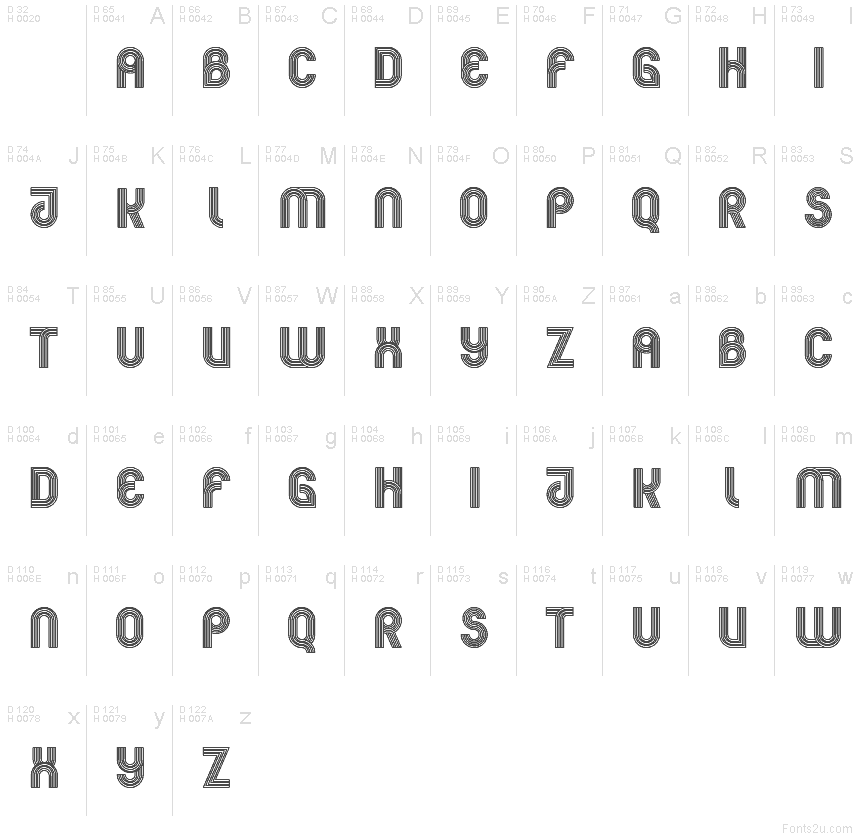
Primavera Book Regular
Primavera Book font by Vladimir Nikolic is a retro, groovy display typeface that embodies a futuristic and geometric style. Its bold design features layered and complex elements, creating a unique visual appeal. This free display font captures attention with its intricate structure while maintaining clarity.
Use Primavera Book for movie posters, book covers, magazine covers, album art, invitations, greeting cards, packaging designs, branding projects, social media content creation or any other art and craft project of yours!